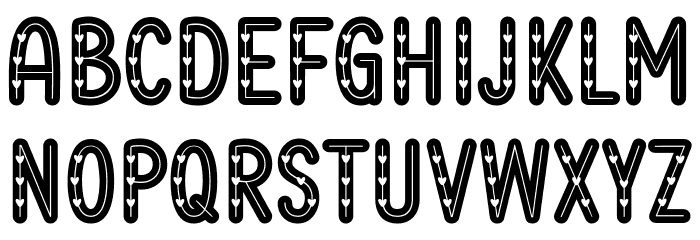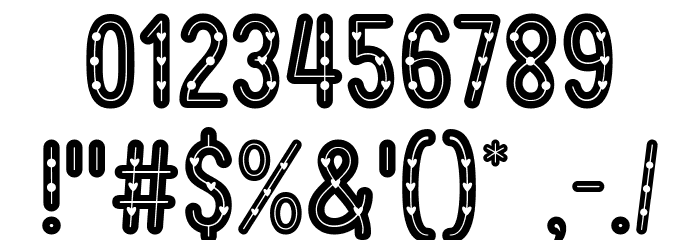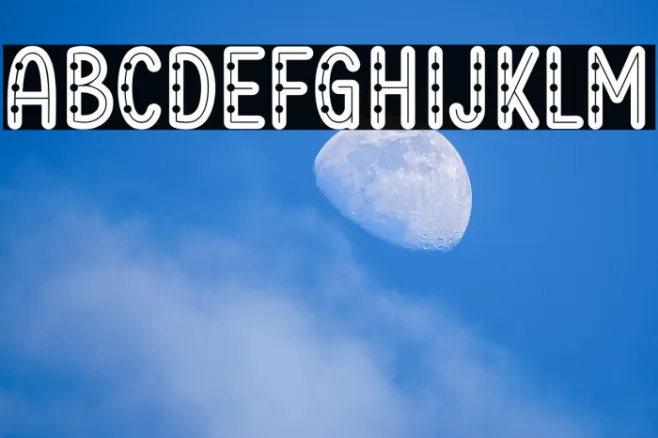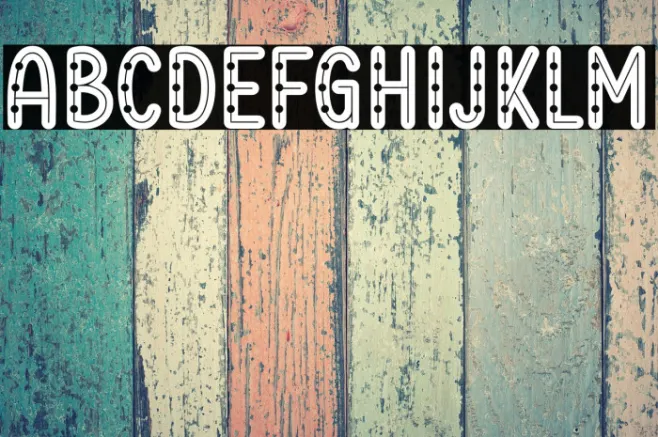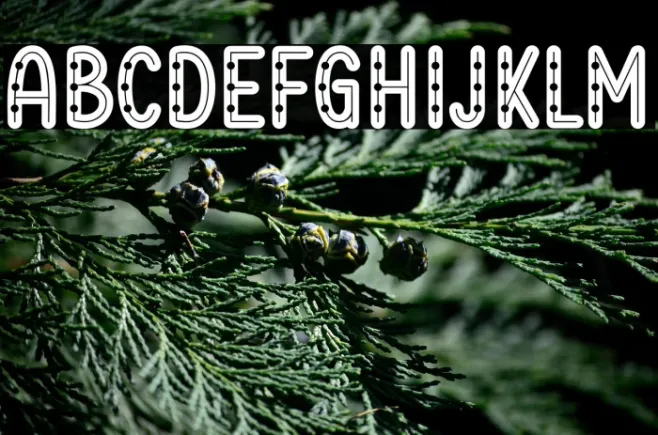
Ready Lover Font
This font features a playful and decorative style, characterized by its bold, outlined letters filled with small heart shapes. The uppercase and lowercase letters maintain a consistent design, with rounded edges and a uniform thickness that adds to its whimsical appeal. The numerals and special characters follow the same pattern, ensuring a cohesive look across all glyphs. The heart-filled design makes it ideal for projects that require a touch of romance or fun, such as Valentine's Day promotions, wedding invitations, or children's party themes. Its unique style is eye-catching and memorable, making it suitable for headlines or logos where a distinctive appearance is desired.
A playful, heart-filled decorative font perfect for romantic or fun themes.
- Font: Ready Lover
- Proposed Projects: Ideal for Valentine's Day cards, wedding invitations, children's party themes, and playful branding.
- Use Case: Headlines, Logos, Invitations